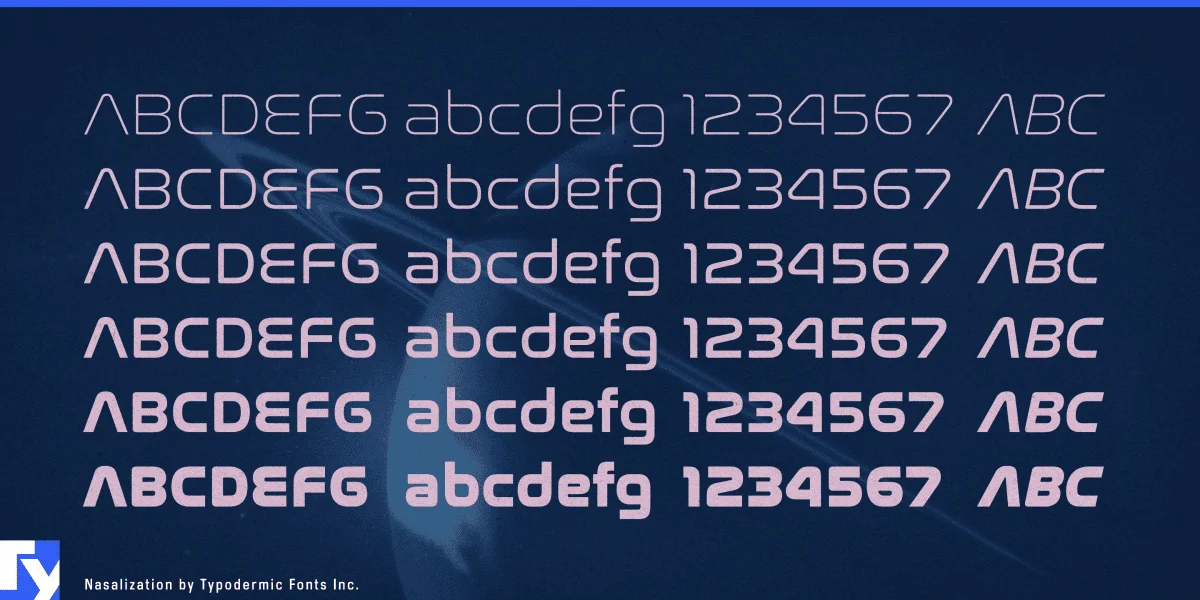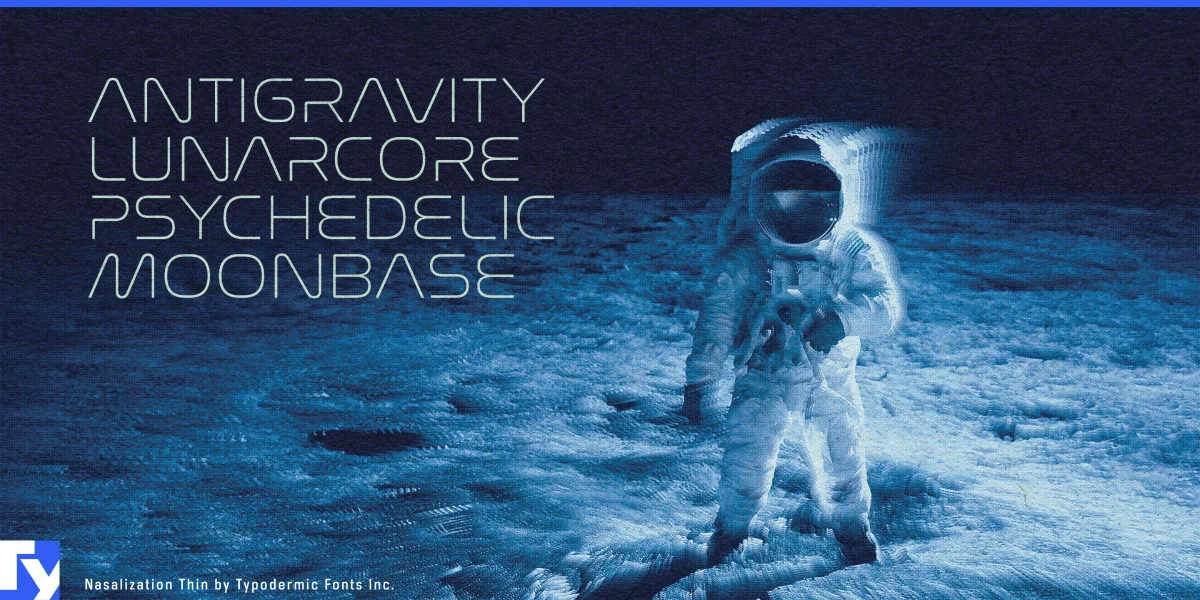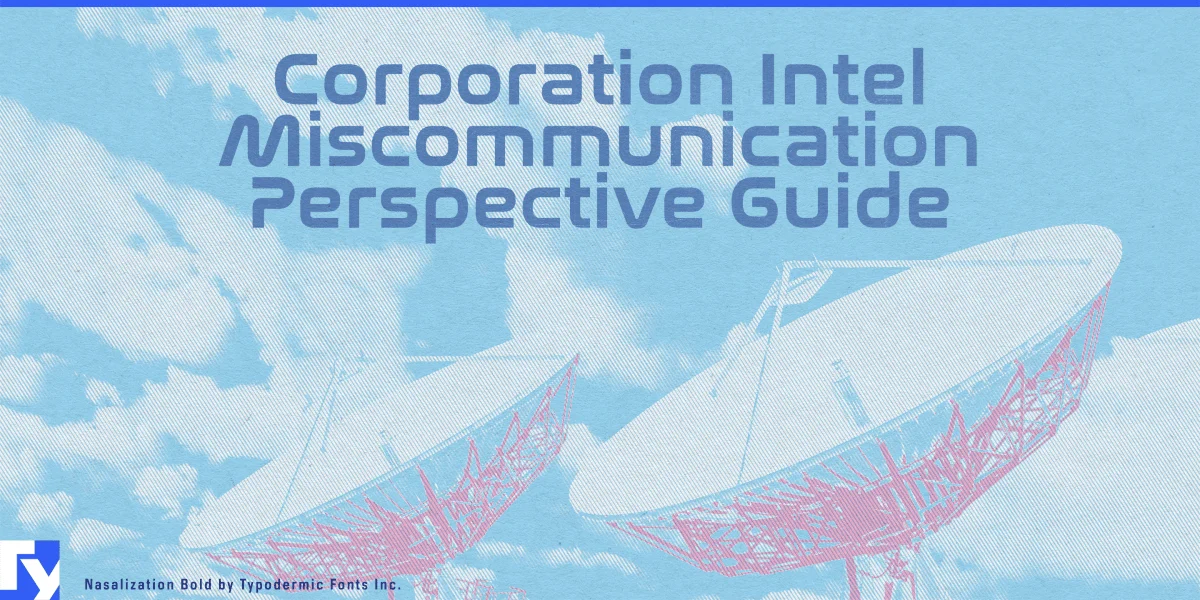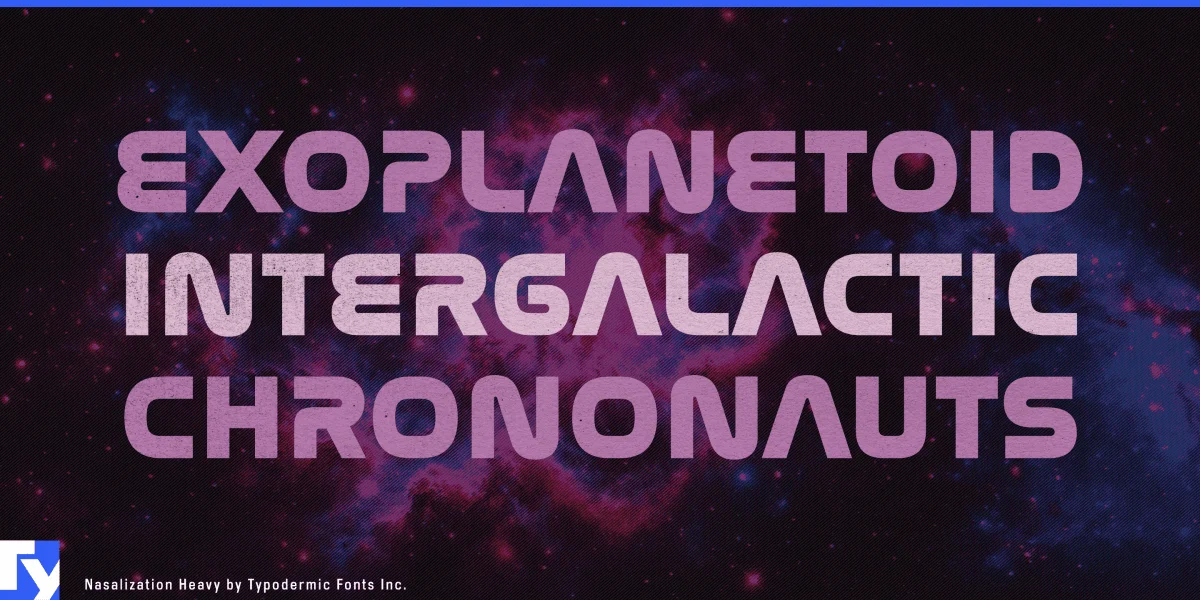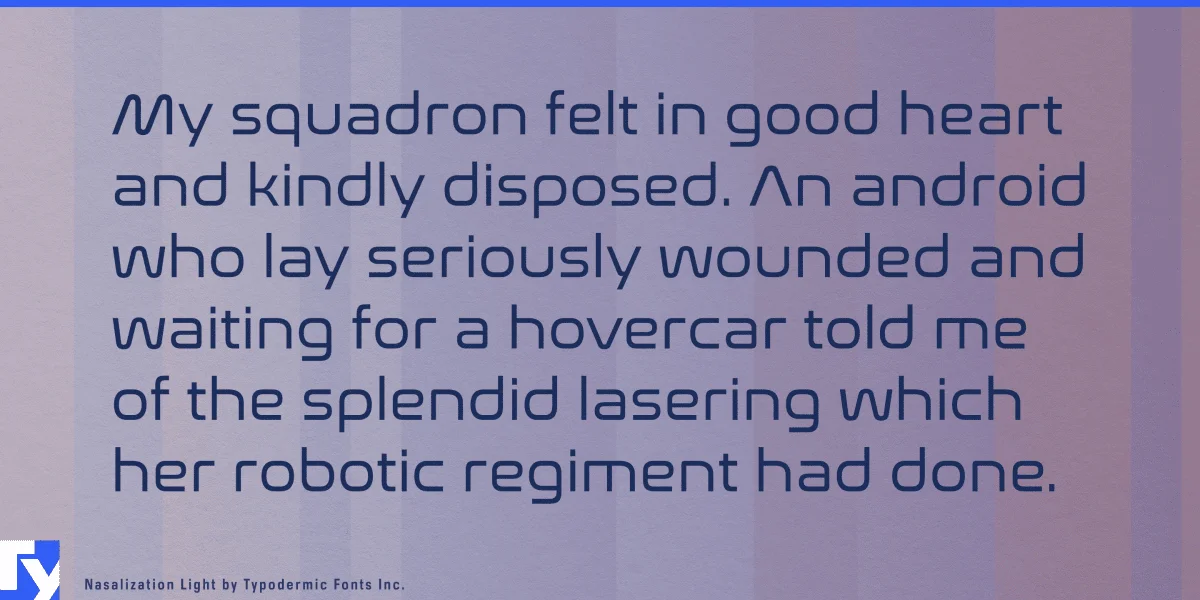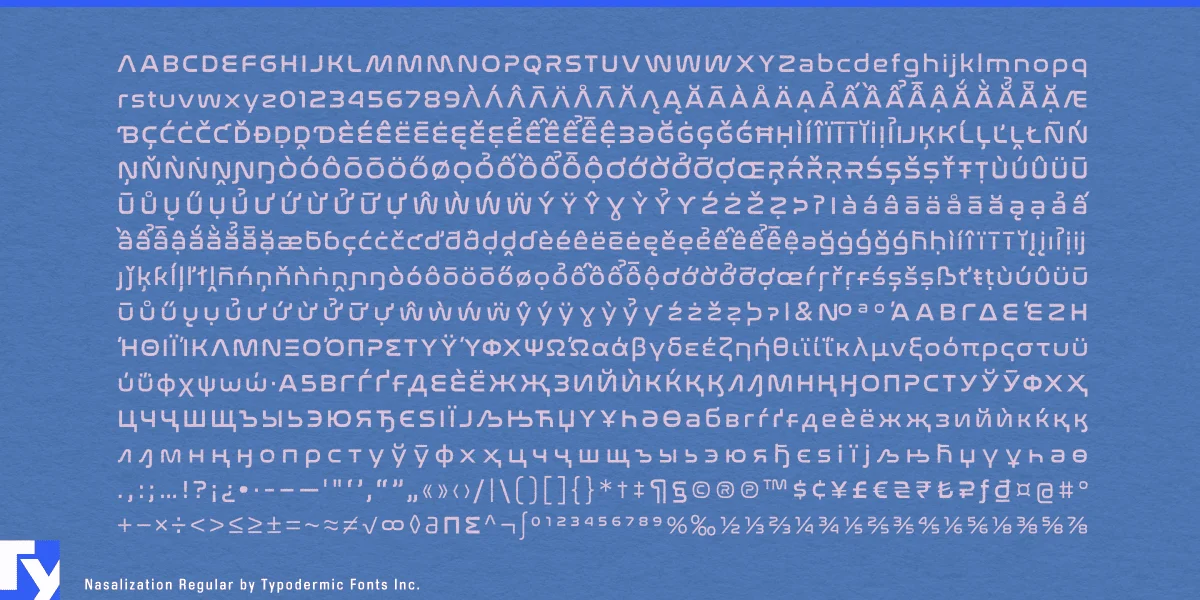
Prepare for liftoff with Nasalization—a typeface that doesn’t just nod to the future, it propels your designs into the stratosphere of style. Inspired by NASA’s iconic 1975 logo, this ultramodern sans serif typeface is more than just letters; it’s a visual countdown to typographic innovation.
Imagine characters as sleek as a spacecraft’s hull, each one engineered to perfection. Nasalization’s six weights offer a range of options, from the gossamer-light touch of zero gravity to the bold impact of a rocket’s thrust. Its attention-grabbing italics? They’re the typographic equivalent of breaking the sound barrier. But Nasalization isn’t content with mere static brilliance. Its OpenType features are the secret launch codes to typographic wonder. Watch in awe as the “M” and “W” characters dynamically flip or straighten based on their surroundings—it’s like watching a space station reconfigure in real-time. Prefer a more grounded approach? Simply disable the “standard ligatures” and your text will align as neatly as astronauts at mission control.
For those who demand even more customization, Nasalization’s “stylistic alternates” function is your mission control panel. Add a crossbar to the “A” and suddenly, your text is strutting with the confidence of a moonwalker. But Nasalization’s true power lies in its linguistic reach. Supporting an array of Latin-based European languages, Vietnamese, Greek, and most Cyrillic-based writing systems, this font is a veritable Rosetta Stone for the space age. From the steppes of Kazakhstan to the launch pads of Cape Canaveral, Nasalization speaks the universal language of innovation.
Ready to take your designs on an interstellar journey? Let Nasalization be your typographic spacecraft. Whether you’re crafting the interface for the next generation of space simulators, designing signage for a cutting-edge science museum, or simply want your coffee shop menu to have a touch of cosmic cool, Nasalization delivers. The countdown has begun. Are you ready to launch your next project into the typographic cosmos?